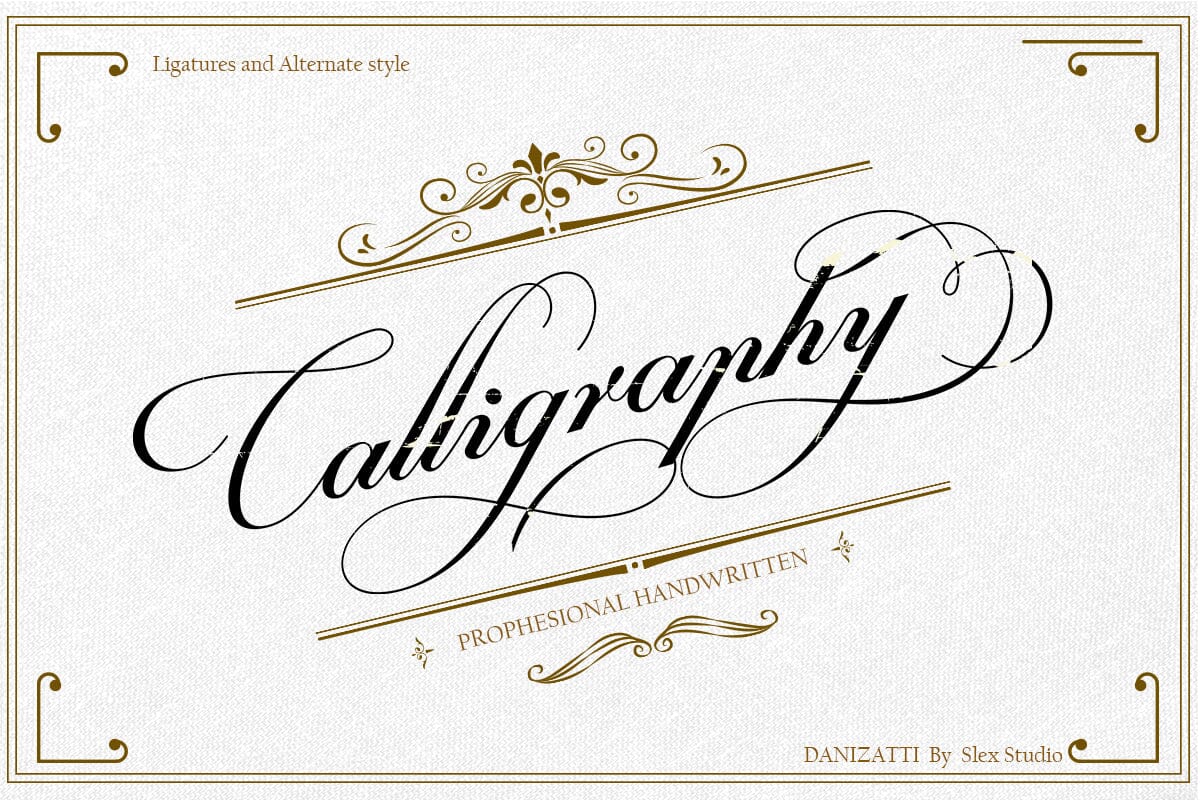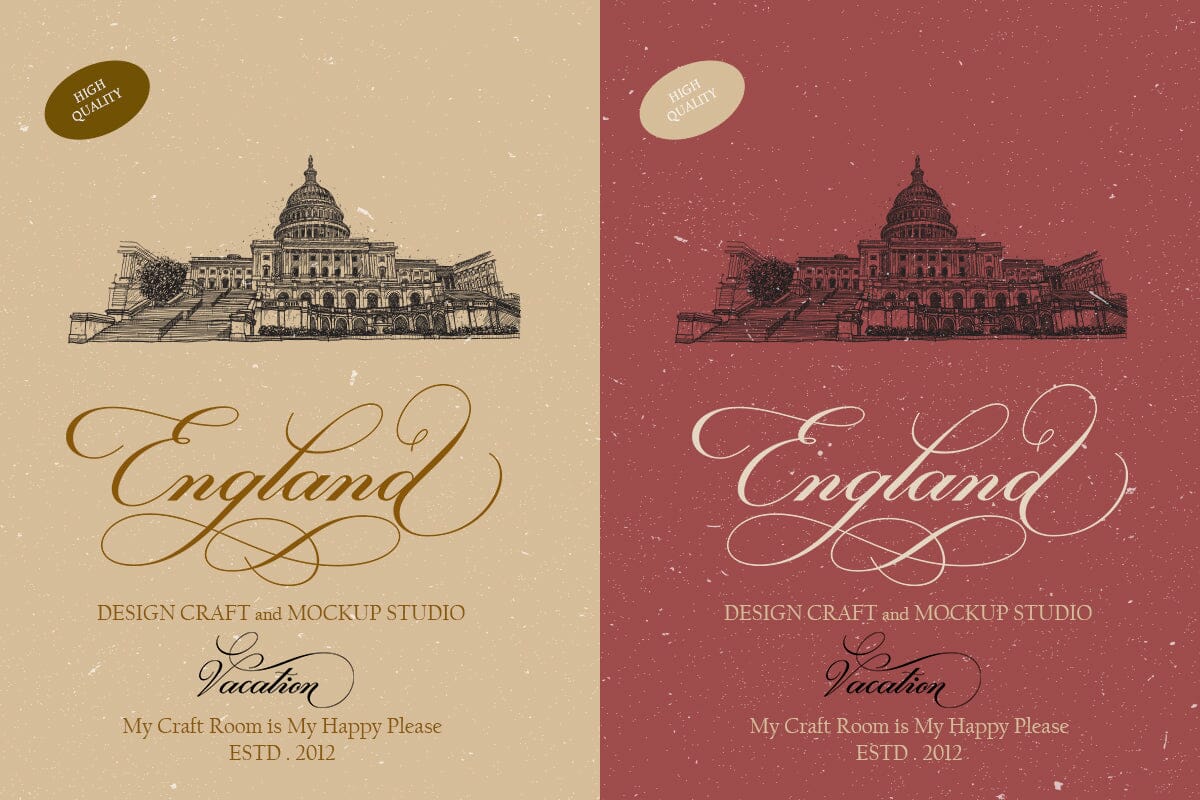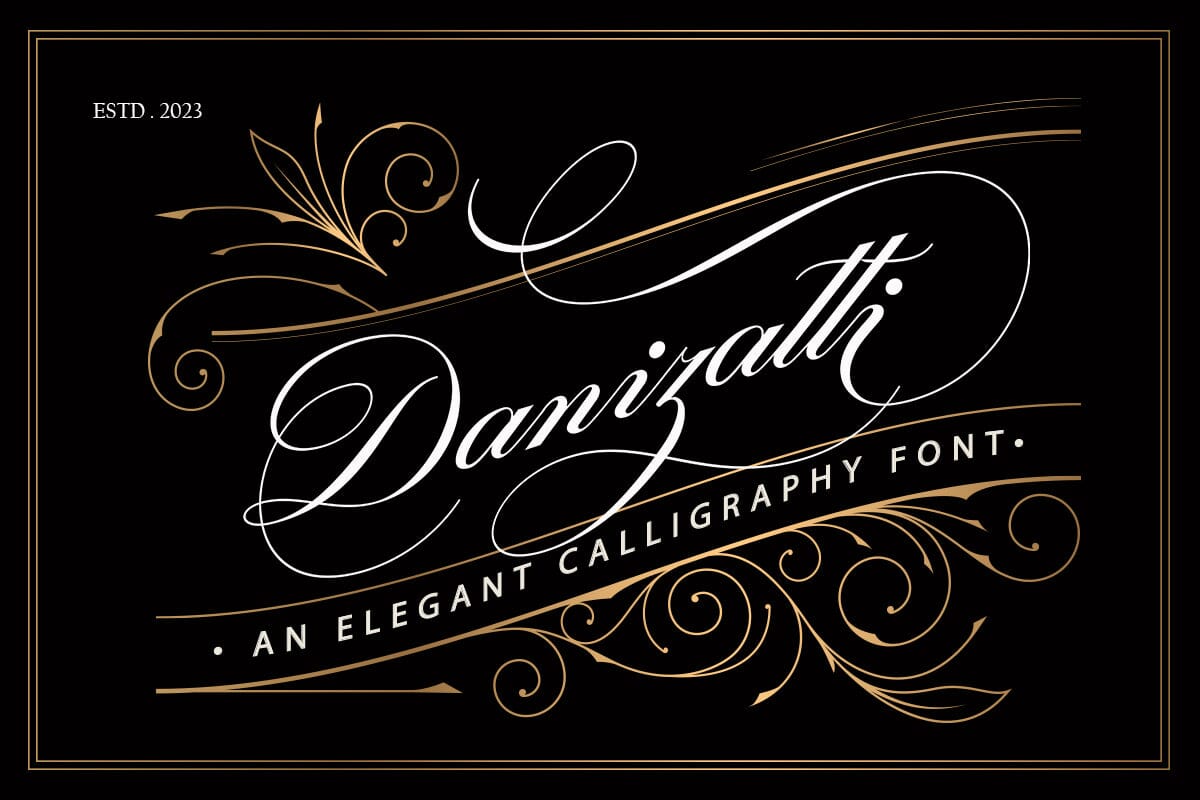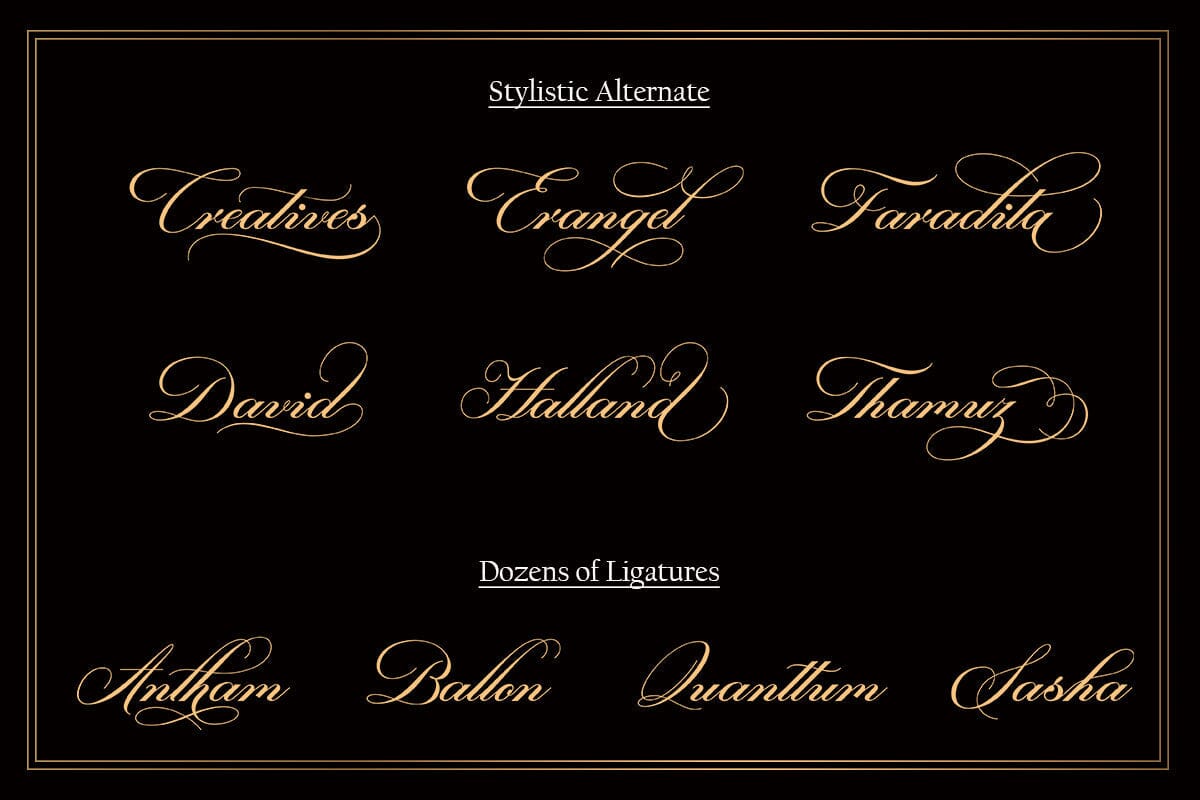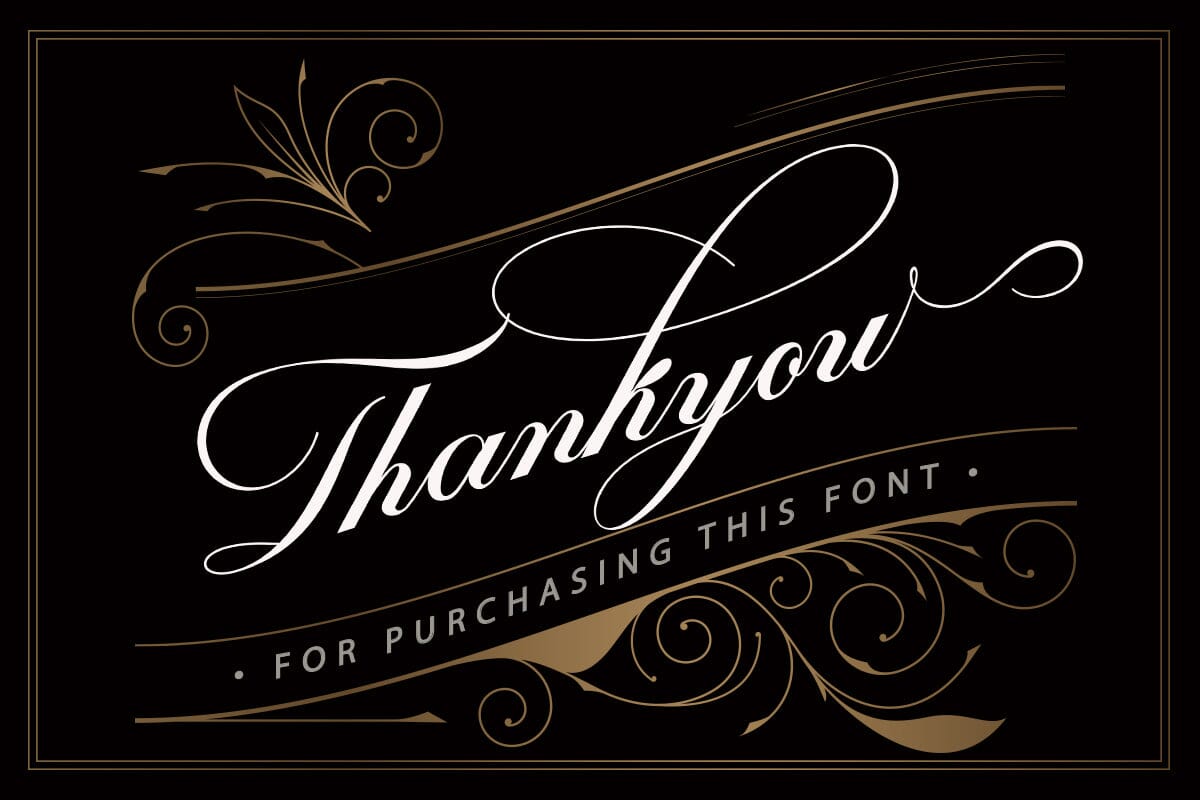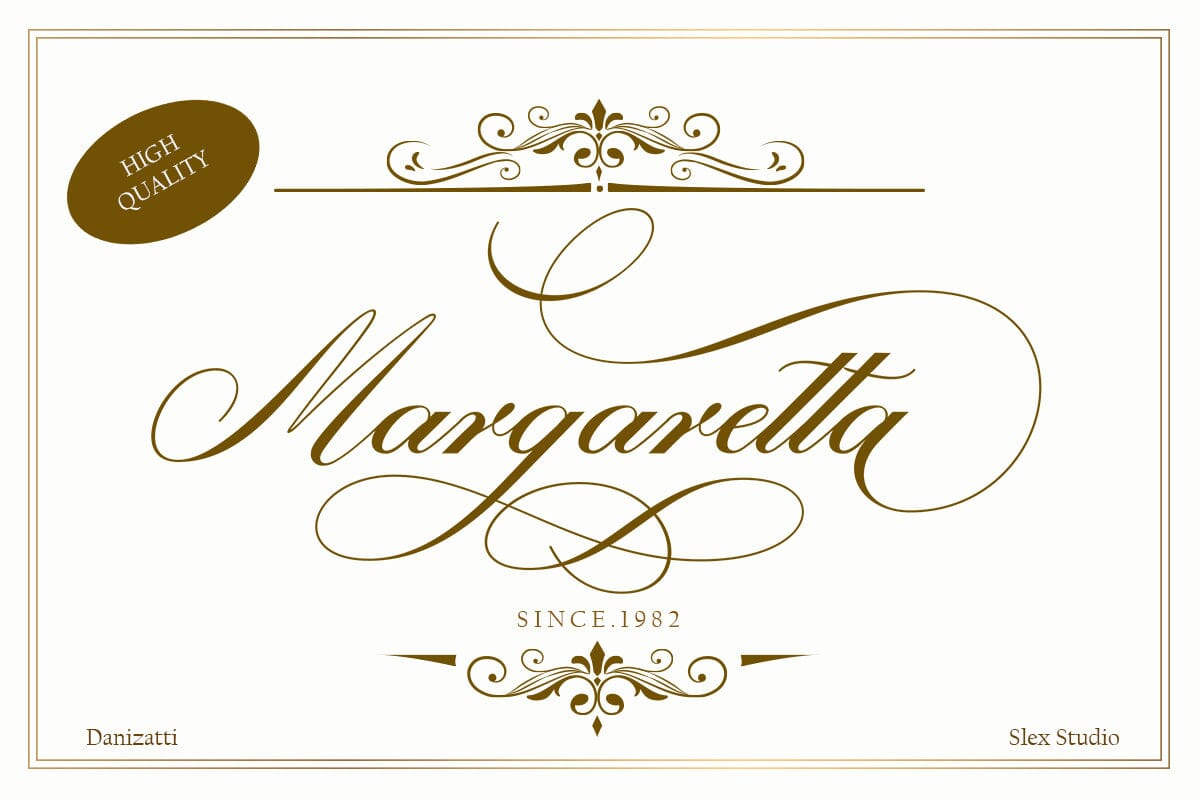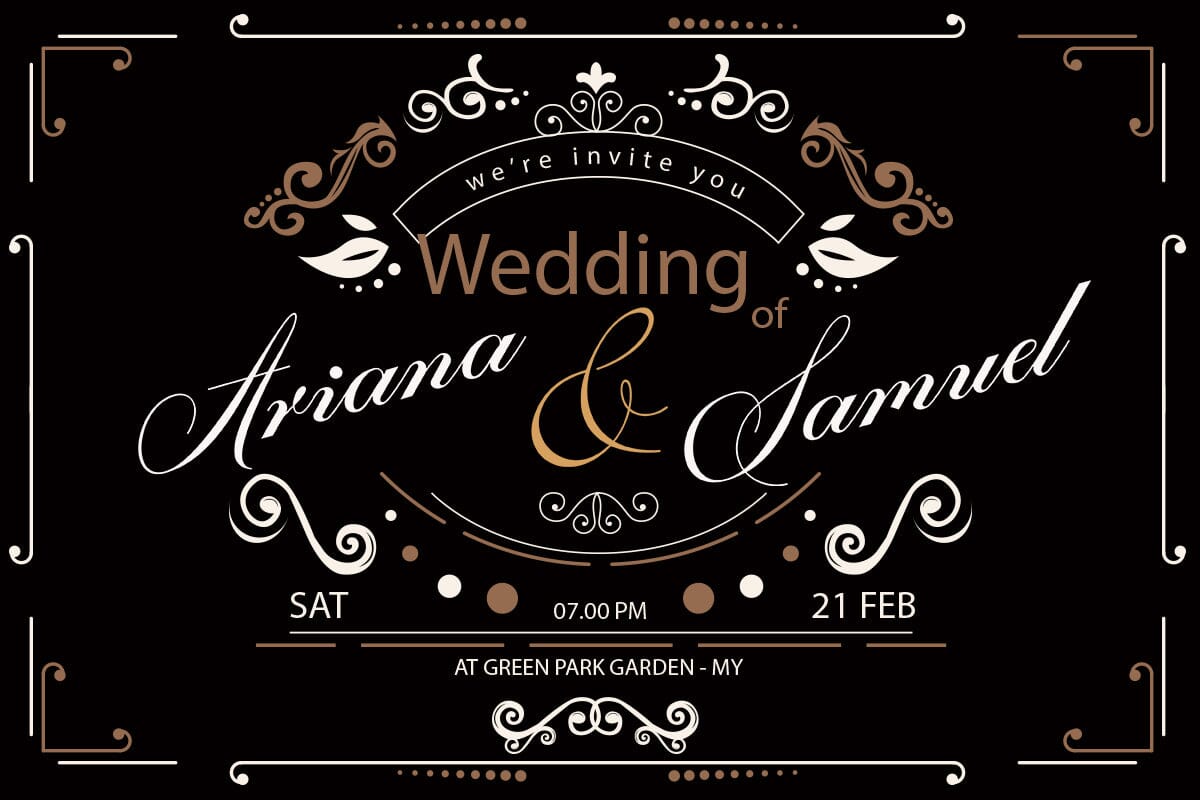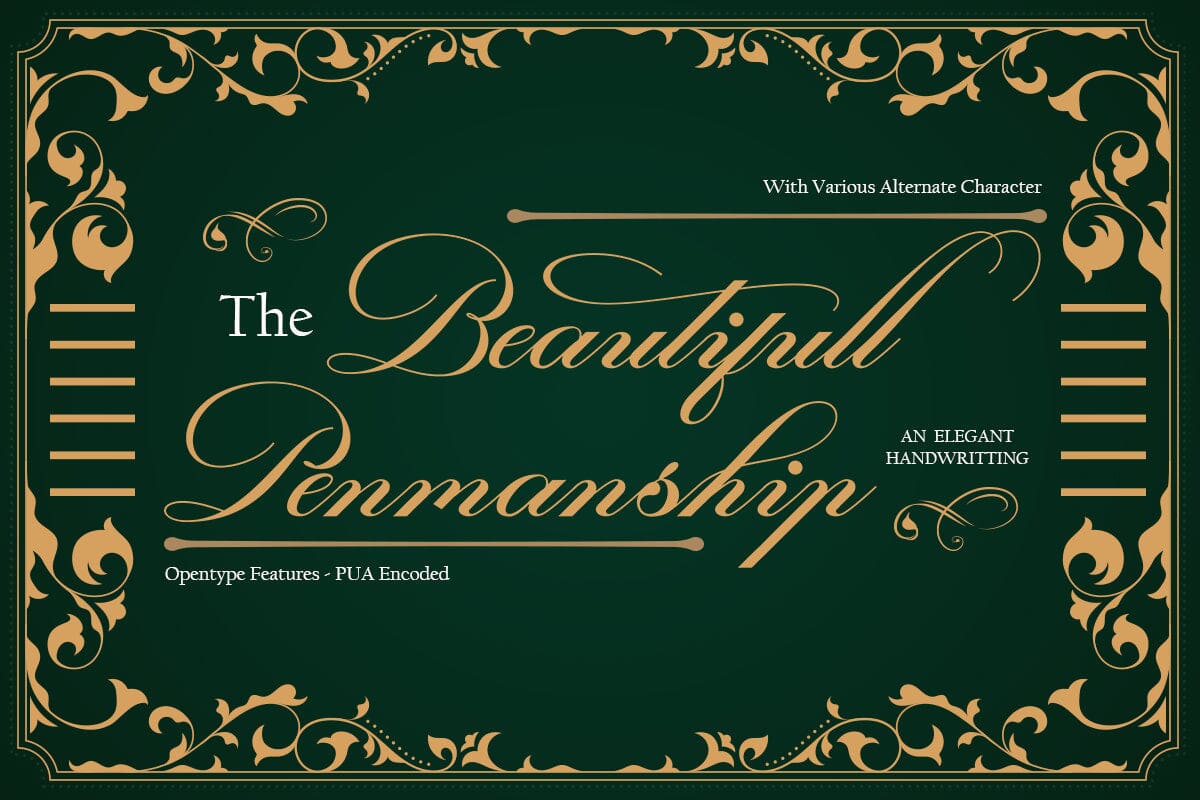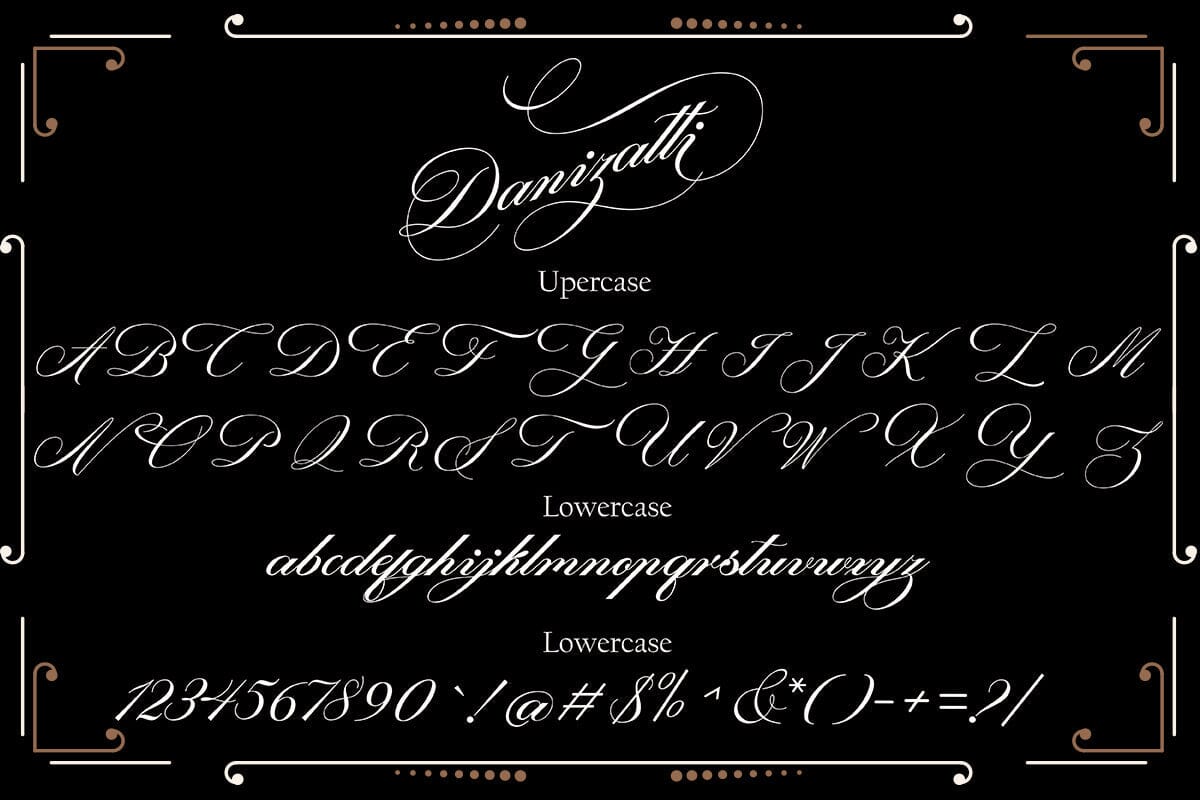
Danizatti script
About Danizatti script
I want to create a font, which is very elegant. So I made Danizatti Script, a kind of classic decorative script with a modern twist. This is a display font intended for vintage logos, fashion labels, custom card headers, badges, food packaging designs, especially wine labels. Actually a lot of great style was consumed when creating this type 🙂 there are 300 fancy letter and punctuation glyphs. I also offer a number of viable stylistic alternatives for multiple letters. NOTE, that you will get full access to font options only in Open Type smart applications like InDesign or Illustrator. You can find more about how to access OpenType features in Adobe Apps here: http://fontfeed.com/archives/opentype-in-adobe-creative-suite-the-raiders-of-the-lost-glyphs-pt_1/